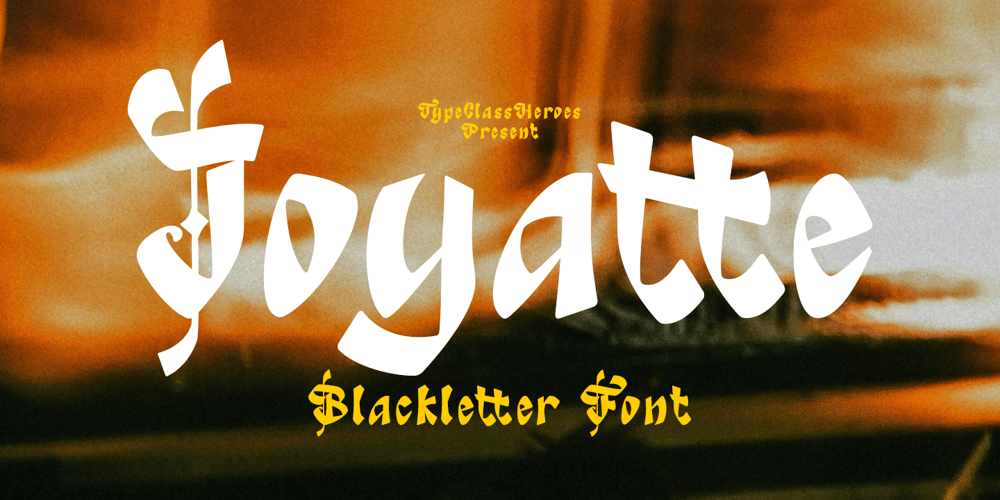
Joyatte Font Family was designed by Suandana ipandemade and published by TypeClassHeroes. Joyatte contains 1 styles and family package options. Really excited to introduce Joyatte is a classic blackletter font, made with a stylish impression and supported by alternative with references to various letters that I combine. Included: Uppercase & Lowercase Number & Symbol International Glyphs Multilingual Support Alternative Ligature Hope you enjoy it.